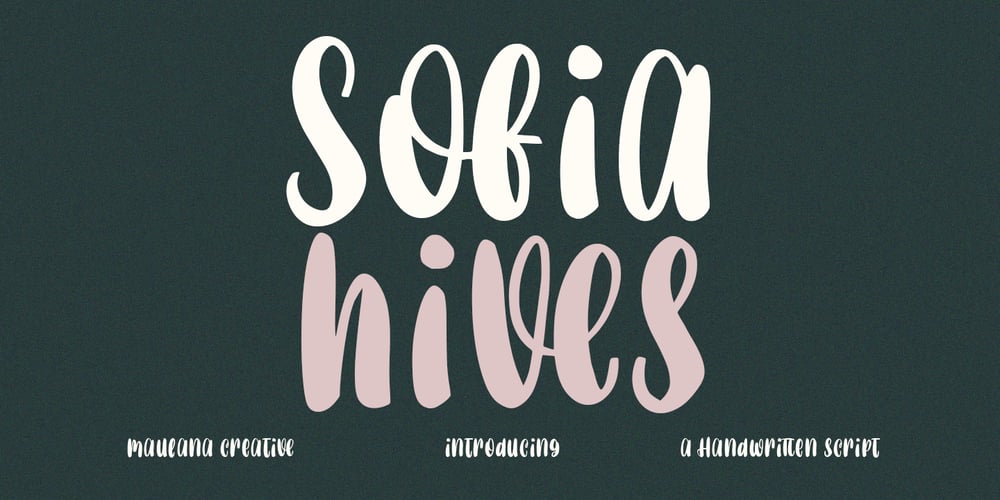
Sofia Hives Font Family was designed by Gilang Maulana and published by Maulana Creative. Sofia Hives contains 1 styles and family package options. Sofia Hives is a fancy handwritten script font. With bold high contrast stroke, fun character with a bit of ligatures and alternates. To give you an extra creative work. Sofia Hives font support multilingual more than 100+ language. This font is good for logo design, Social media, Movie Titles, Books Titles, a short text even a long text letter and good for your secondary text font with sans or serif. Make a stunning work with Sofia Hives font. Cheers, Maulana Creative